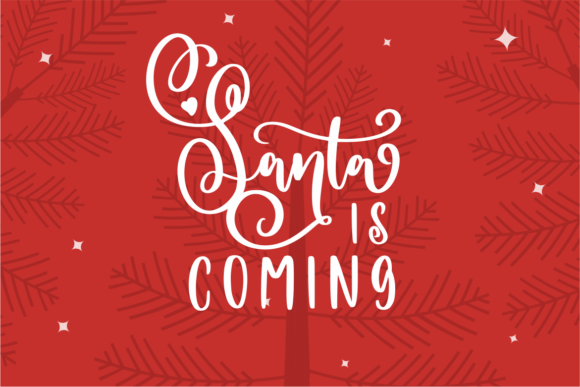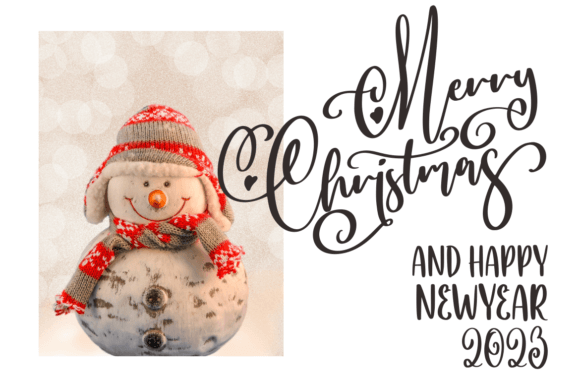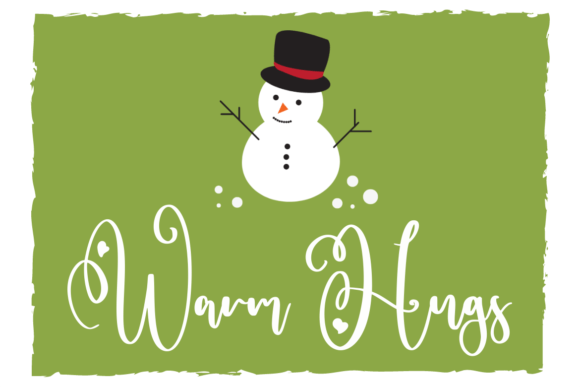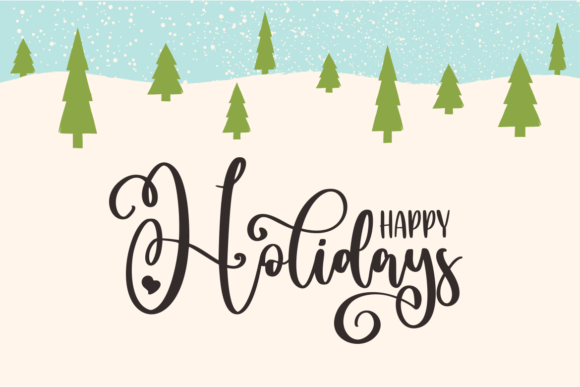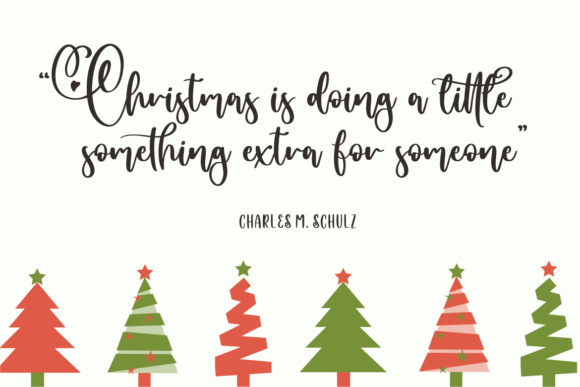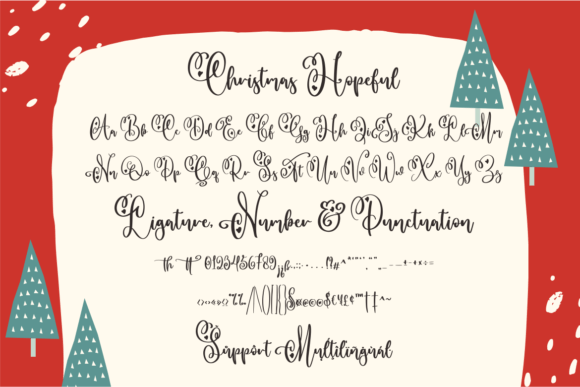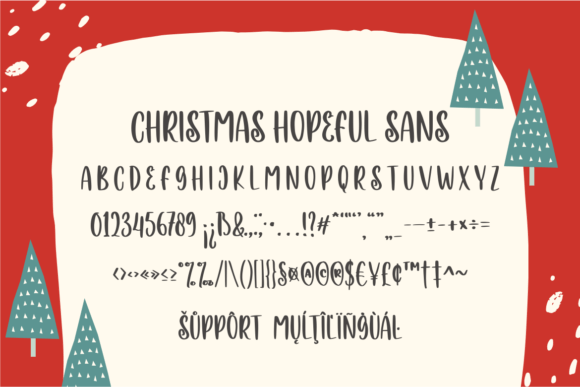
Christmas Hopeful Duo Font: Stylish Script and Sans Serif for Festive Designs
Christmas Hopeful is a versatile Christmas font duo that combines a stylish script with a delicate sans serif. This pairing is perfect for adding a romantic and festive touch to a wide range of design projects.
Key Features of Christmas Hopeful Duo Font
- Dual Font Styles: Includes both script and sans serif variations.
- Versatile Use: Suitable for many projects, from greeting cards to headlines.
Perfect for Various Holiday Projects
Christmas Cards and Invitations
The font’s romantic style is ideal for creating beautiful holiday greetings and festive invitations.
Holiday Branding and Marketing
Use Christmas Hopeful to design eye-catching social media graphics and marketing materials for the holiday season.
Festive Packaging and Labels
The font’s elegant look makes it perfect for creating charming Christmas packaging and gift labels.
Why Choose Christmas Hopeful Duo Font?
Christmas Hopeful offers more than just festive letters. Here’s why it stands out:
- Combines script and sans serif for versatile design options
- Adds a romantic and stylish touch to holiday designs
Enhancing Your Holiday Designs
By using Christmas Hopeful, you open up new design possibilities for the festive season. Its stylish duo style works well in many contexts, from holiday posters to website headers. The font’s ability to convey both elegance and holiday cheer can inspire creative ideas for your seasonal projects.
If you’re looking for a font that combines holiday spirit with versatile style, Christmas Hopeful Duo is an excellent choice. It’s perfect for adding a romantic and festive touch to your work, especially for projects that need a sophisticated, Christmas feel.
Explore how Christmas Hopeful Duo can transform your holiday designs. From greeting cards to marketing materials, this font brings a stylish and festive quality to your seasonal creations.